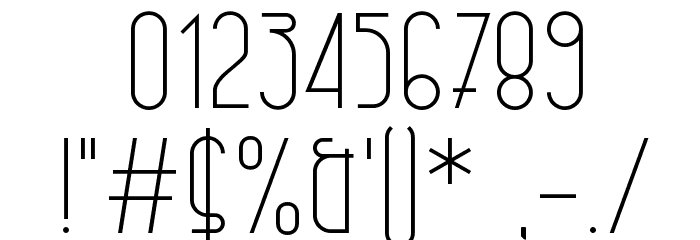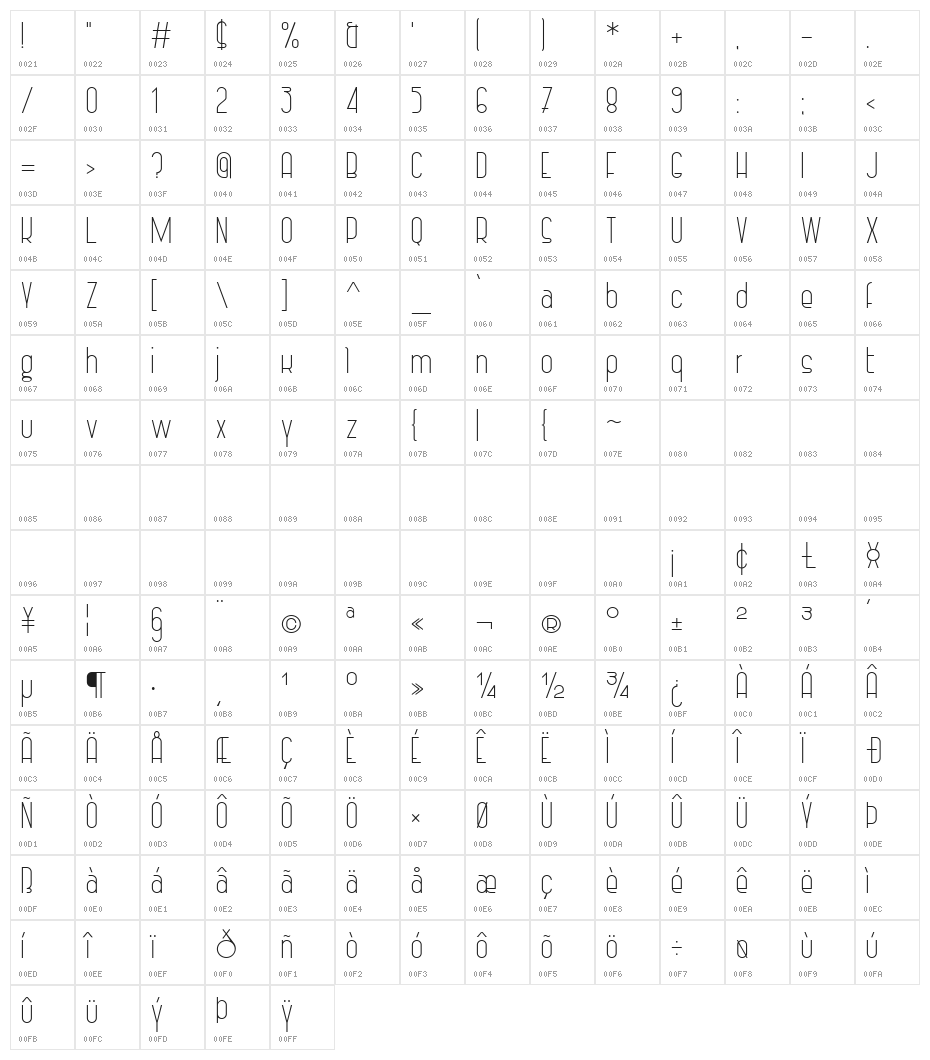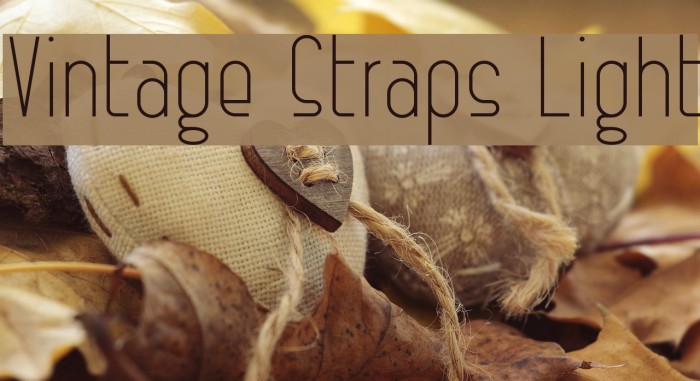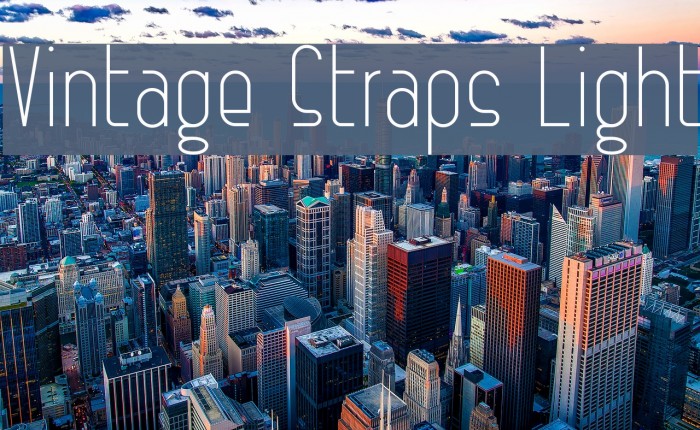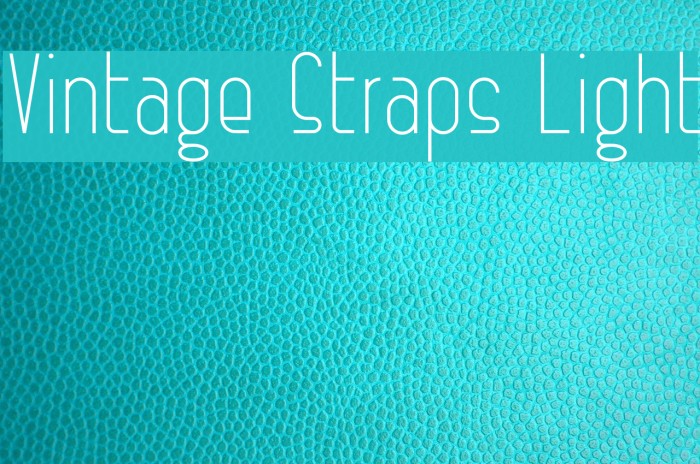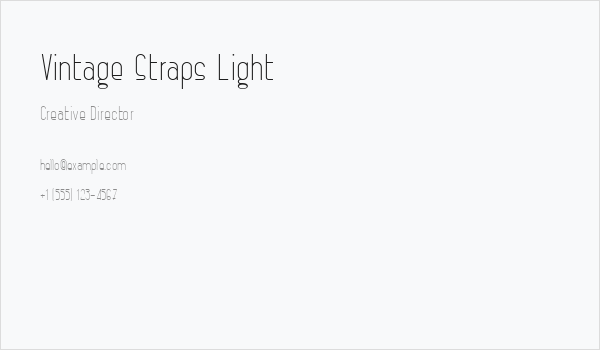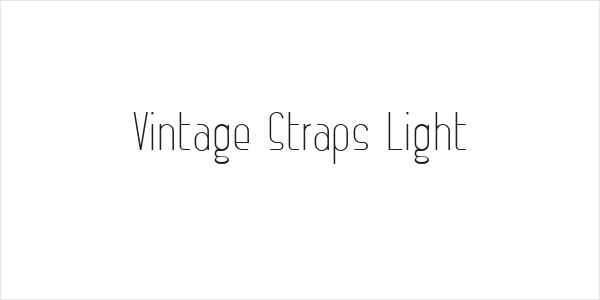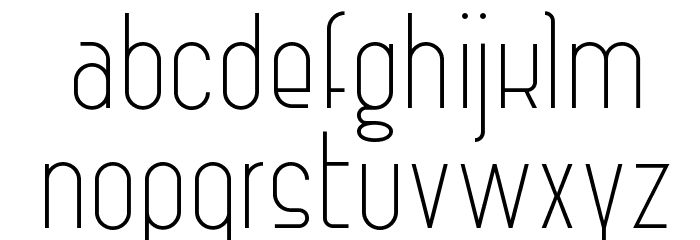
Vintage Straps Light Font
Vintage Straps Light Description
This font features a sleek, minimalist design with elongated letterforms that exude a modern yet vintage appeal. The characters are thin and tall, creating an airy and elegant look. The uppercase and lowercase letters maintain a consistent height, while the numerals and special characters complement the overall aesthetic. The font's clean lines and geometric shapes make it versatile for various design applications. Its light weight and open structure enhance readability, making it suitable for both digital and print media. The font's unique style is perfect for projects that require a touch of sophistication and modernity.
Overall StyleModern Vintage
Use CaseHeadlines, Logos, Editorial Design
Proposed ProjectsIdeal for branding, editorial design, packaging, and web design projects that require a modern yet vintage touch.